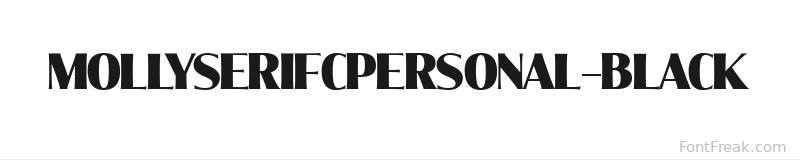
MollySerifCPERSONAL-Black
About MollySerifCPERSONAL-Black
MollySerifCPERSONAL-Black is a striking serif font designed by Mans Greback, known for its bold presence and elegant characteristics. This font belongs to the serif category, featuring a robust stroke weight that lends it an air of confidence and authority. The contrast between thick and thin strokes creates a dynamic visual appeal, while the carefully considered spacing ensures readability, making it suitable for both headlines and body text.
The font is perfect for a variety of creative applications. Its bold nature makes it an excellent choice for wedding invitations, where it can convey both formality and warmth. Additionally, MollySerifCPERSONAL-Black works wonderfully for movie posters, where dramatic titles can capture the audience's attention effectively. Restaurant menus can also benefit from its sophisticated style, attracting diners with an inviting aesthetic. Other use cases include branding materials, such as logos and business cards, where a strong visual identity is essential.
What truly makes the MollySerifCPERSONAL-Black font stand out is its blend of elegance and boldness, making it suitable for both modern and traditional designs. Its unique character brings a touch of sophistication to any project, ensuring that your text not only communicates but also captivates. For those seeking an eye-catching typeface, the MollySerifCPERSONAL-Black font free download offers an excellent opportunity to enhance your creative work with a professional touch.